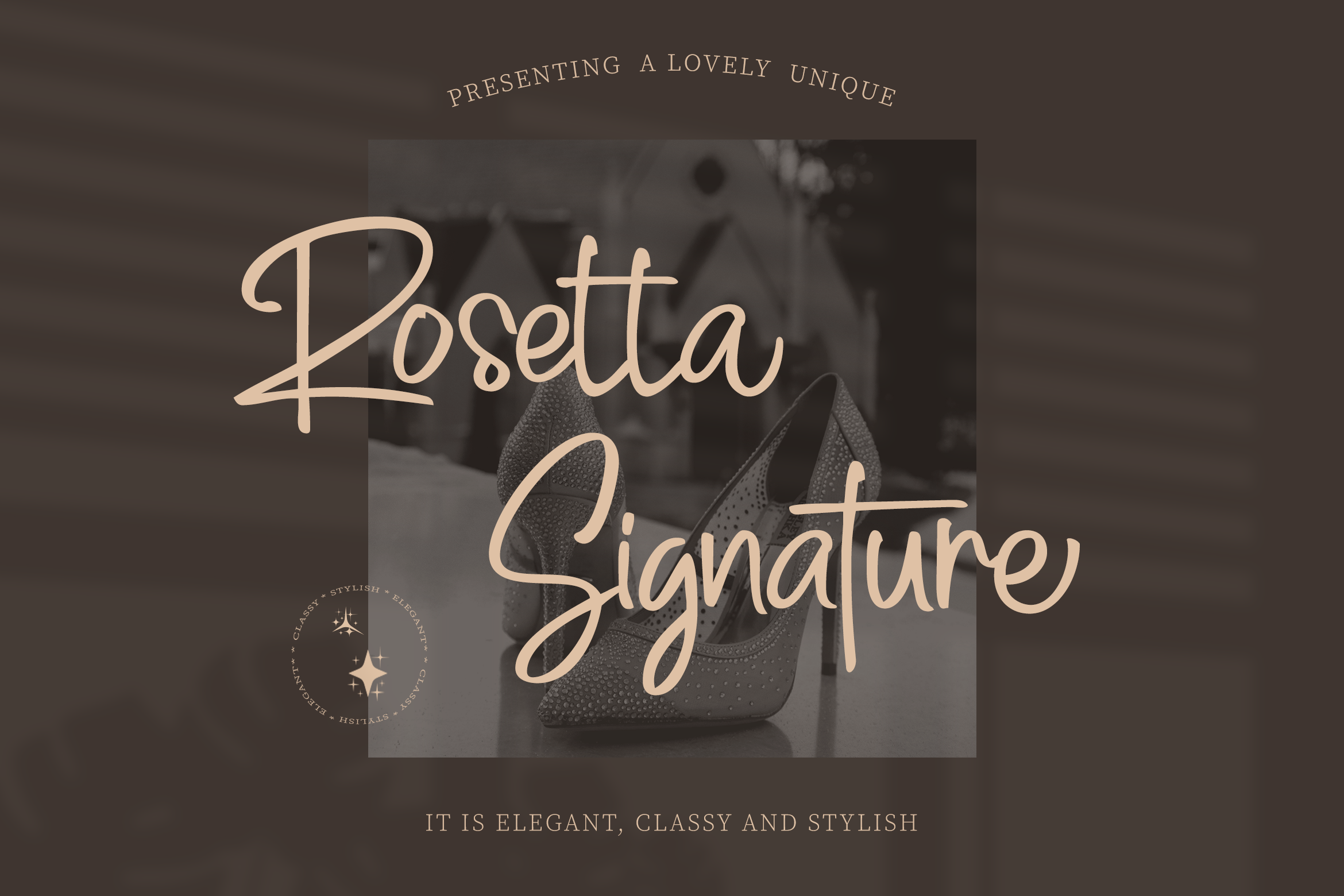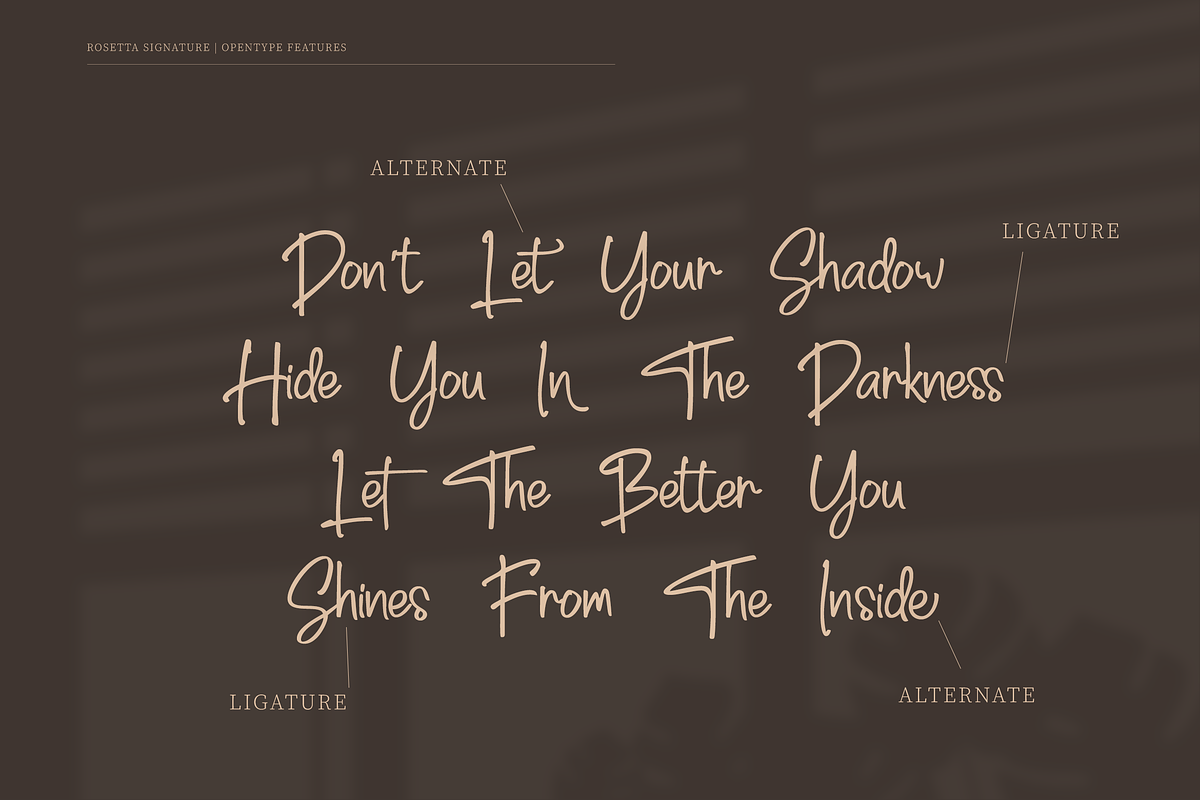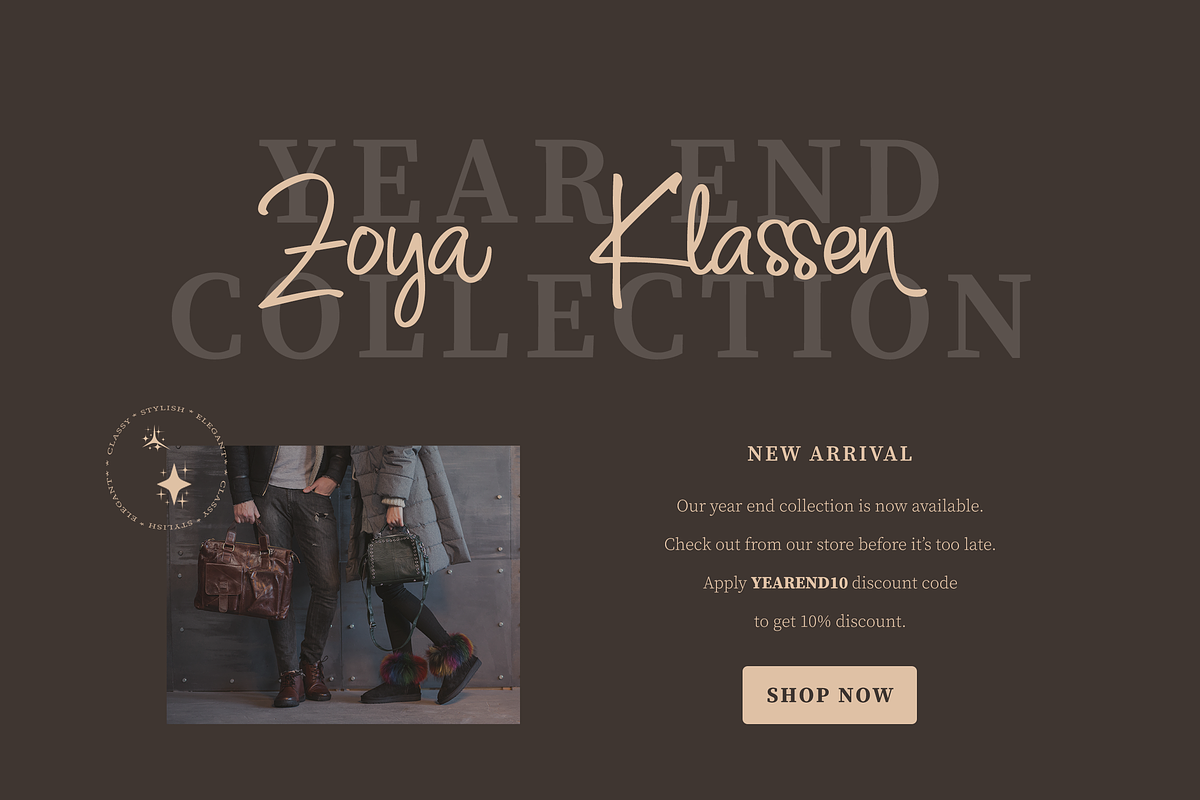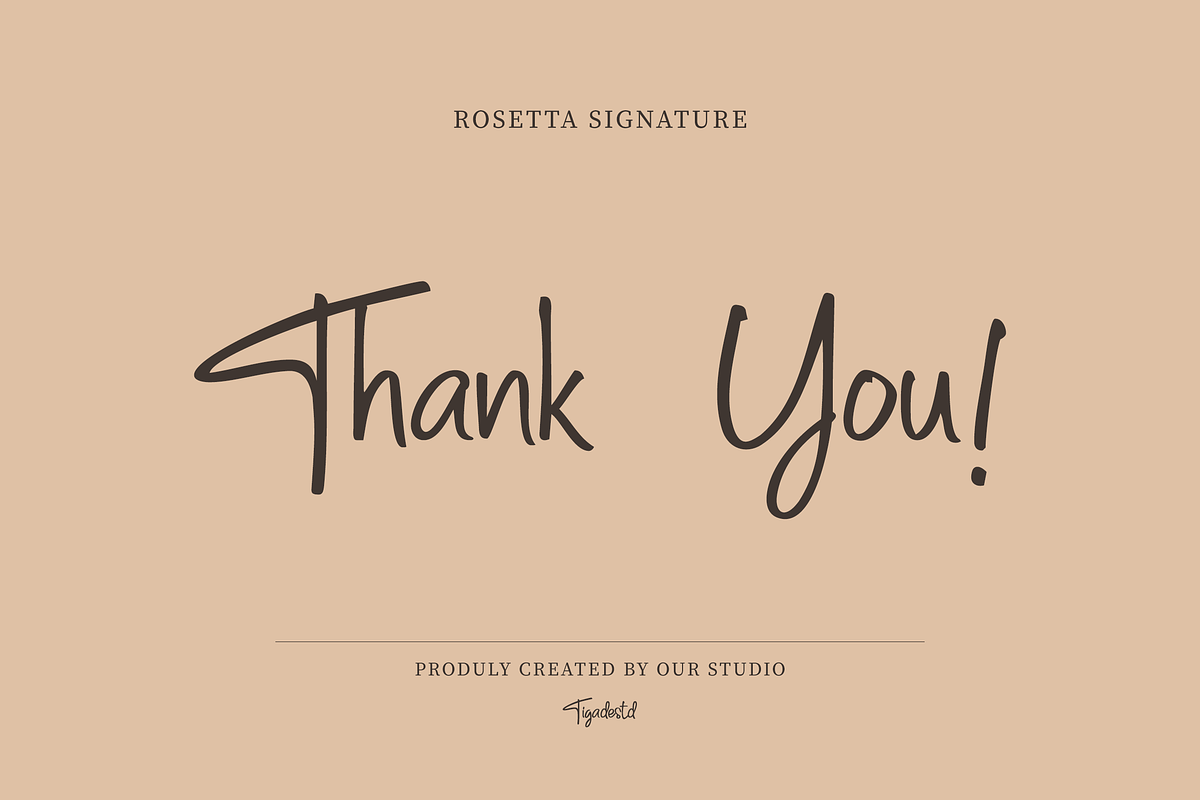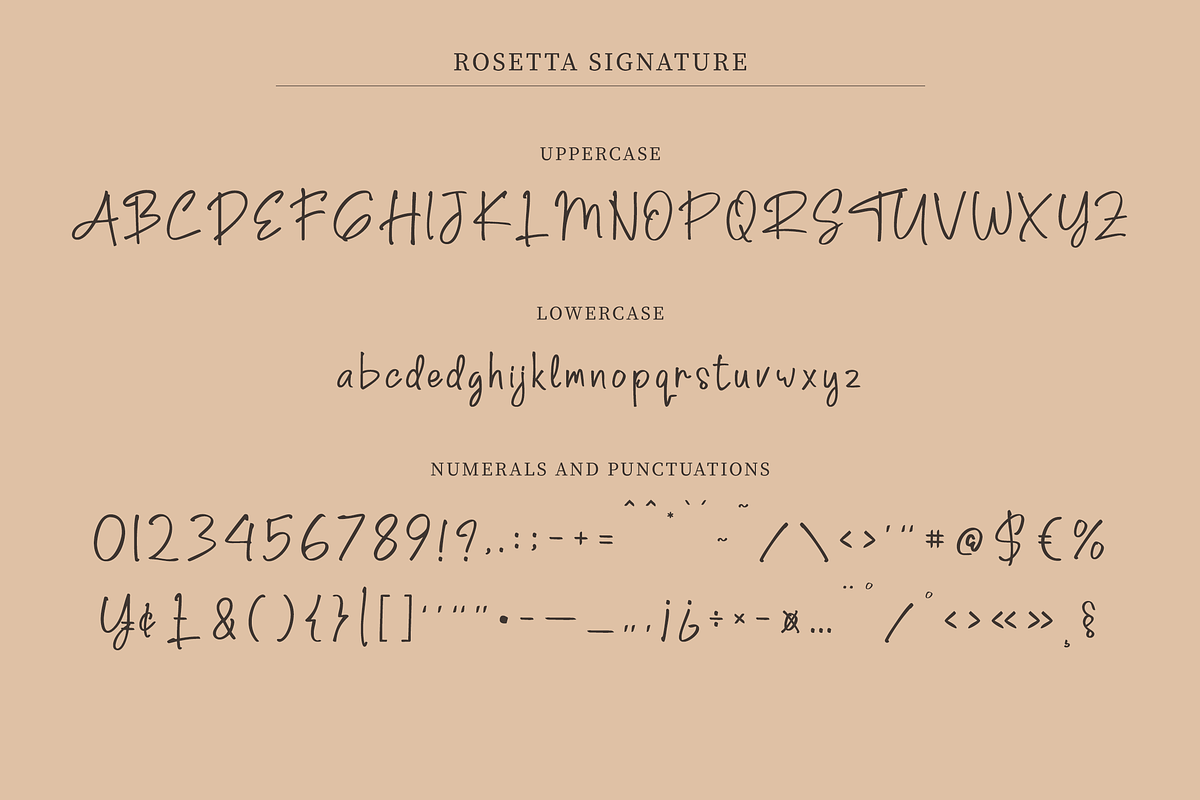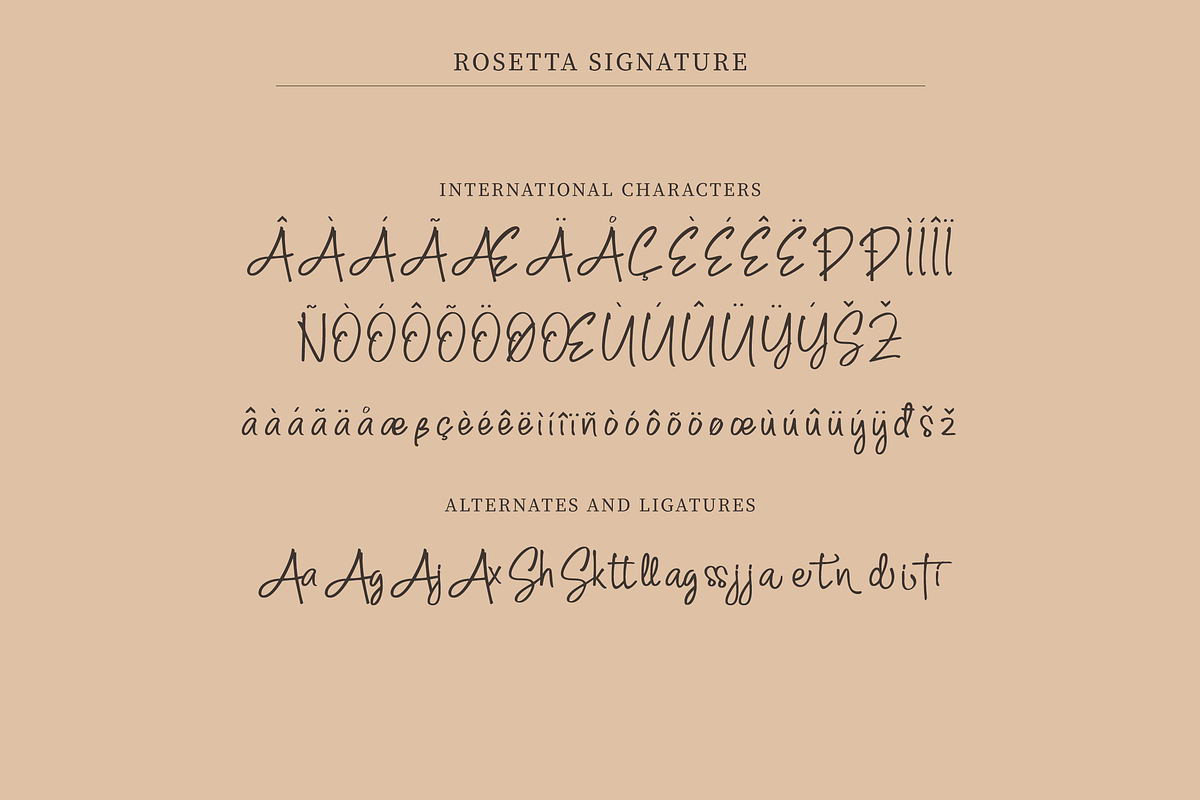
Rosetta Signature | Elegant Font
Rosetta Signature Script is a modern, fashionable, sophisticated and elegant signature-style font. It's uniquely design with the elegant hand stroke.
Rosetta Signature Script is perfect for branding projects, logo, wedding designs, social media posts, advertisements, product packaging, product designs, label, photography, watermark, invitation, stationery and any projects that need handwriting taste.